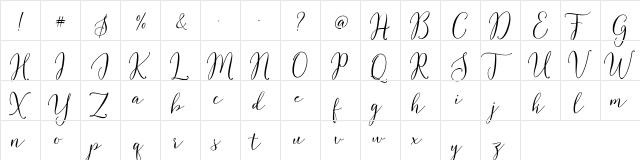
Flash Script DEMO Regular Font Preview
Flash Script DEMO Regular
Flash Script DEMO Regular Font Details
Design Context for Flash Script DEMO Typeface
Flash Script DEMO flows with the natural rhythm of handwritten lettering, making it ideal for designs that call for warmth and personal expression.
Font Pairing: Combine Flash Script DEMO with a simple geometric sans for maximum contrast — the tension between flowing curves and clean structure is a classic typographic pairing.
Pro Tip: Use Flash Script DEMO for short runs of text — names, titles, or taglines. Extended body copy in script faces tires the eye quickly.